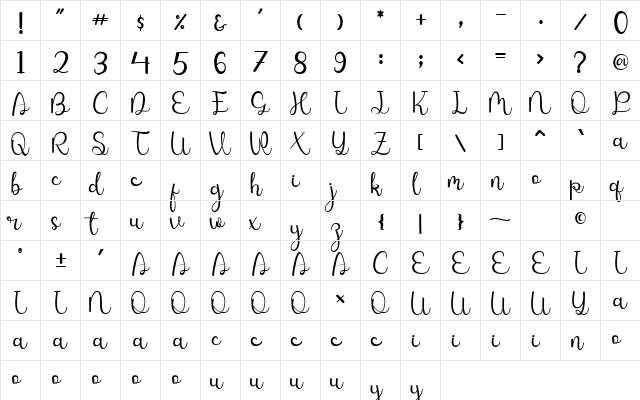
Sweet Leaves Regular
| Designer | Fadlilah studio |
Design Context for Sweet Leaves Typeface
Sweet Leaves is a composed and adaptable typeface that performs quietly and consistently across a wide range of design contexts.